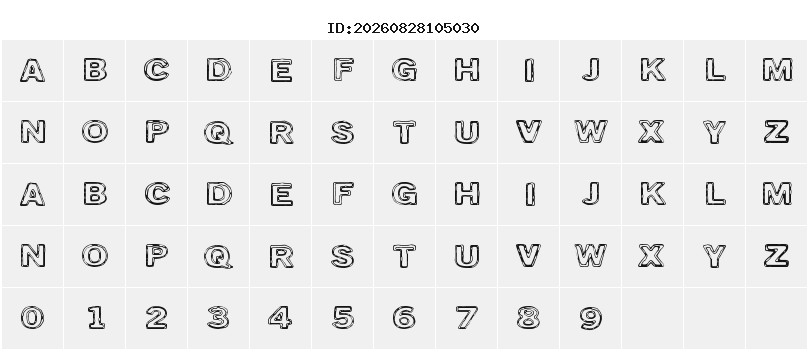
About Torstai perjantai.ttf
Torstai perjantai.ttf is a modern, elegant sans-serif font designed for ultimate readability and visual harmony. Perfect for branding, headlines, web design, and print materials.